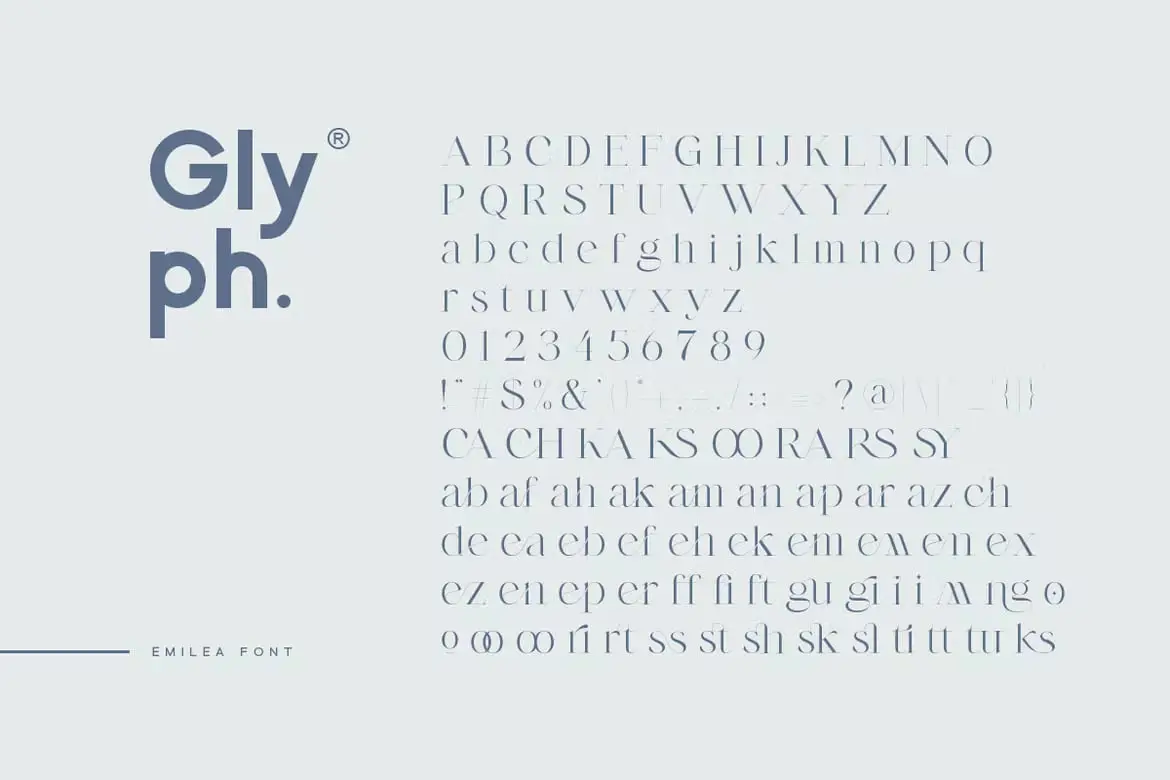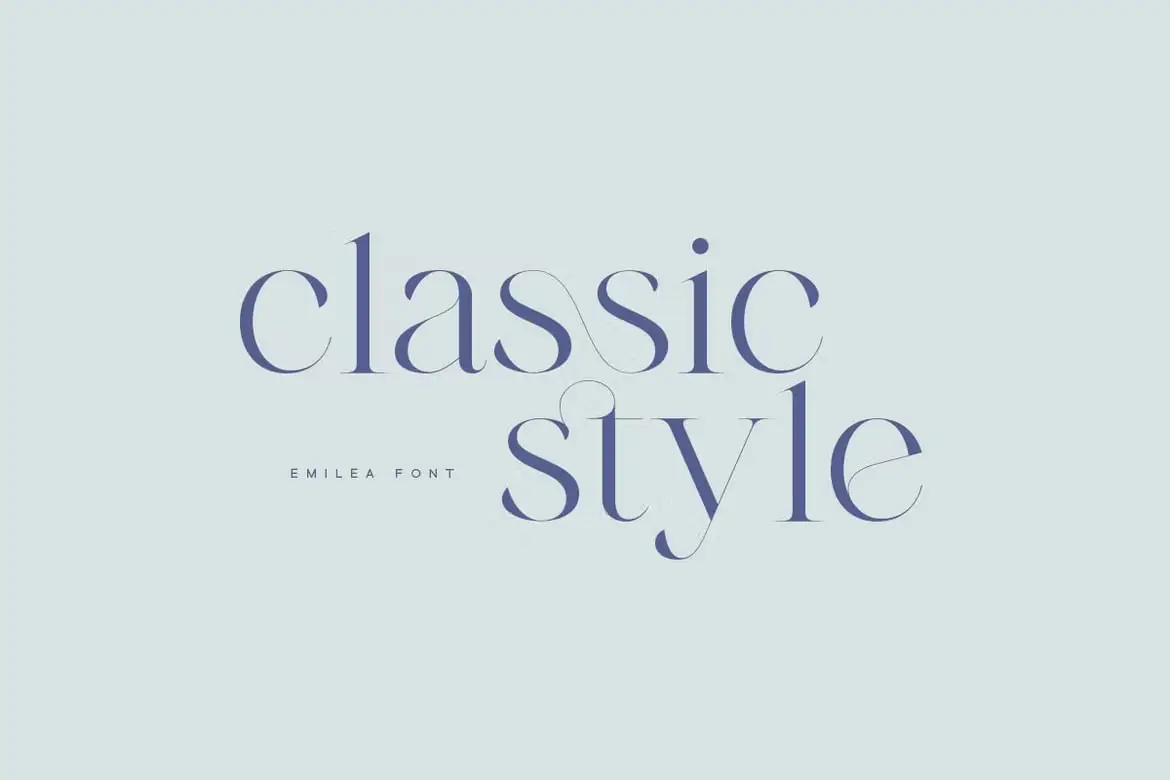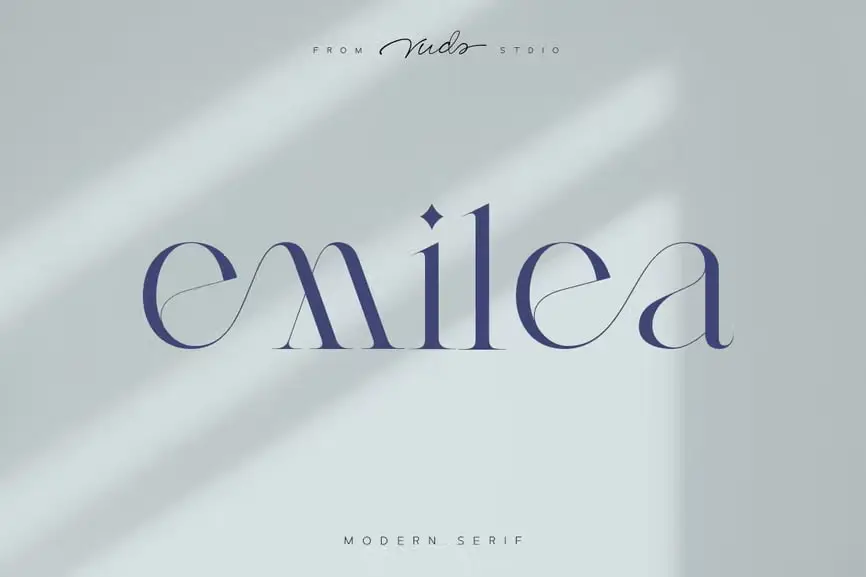
Emilea Font
The Emilea Font is a beautifully crafted typeface that combines elegance and readability, making it perfect for a variety of design projects. With its unique character shapes and smooth lines, this font adds a touch of sophistication to any text.
• Multiple weights for versatile use
• Stylish ligatures for a polished look
• Style: Serif
• Designed for both web and print applications
• Perfect for creating elegant invitations and greeting cards
• Use in web design for a stylish and modern appearance